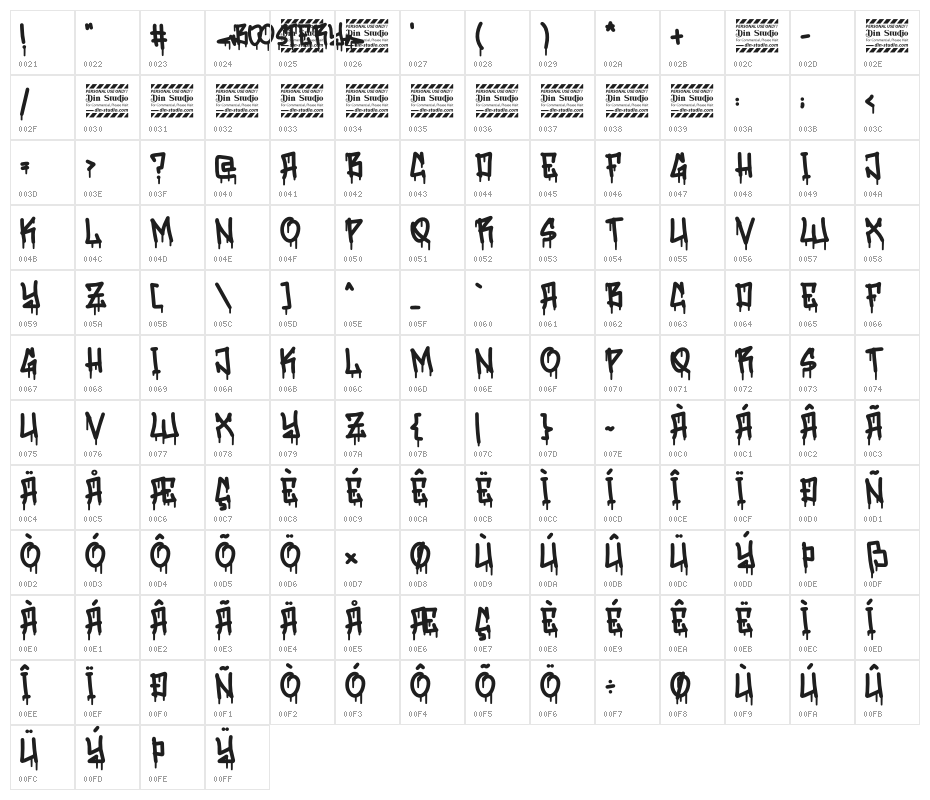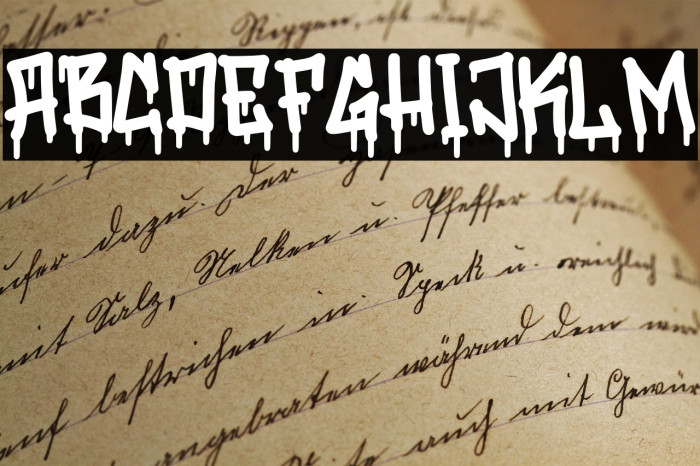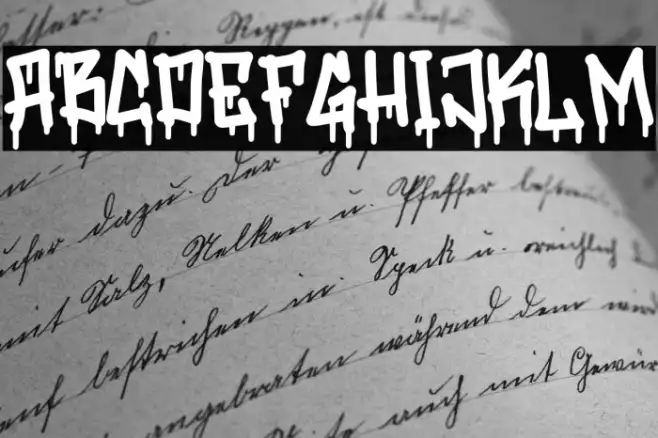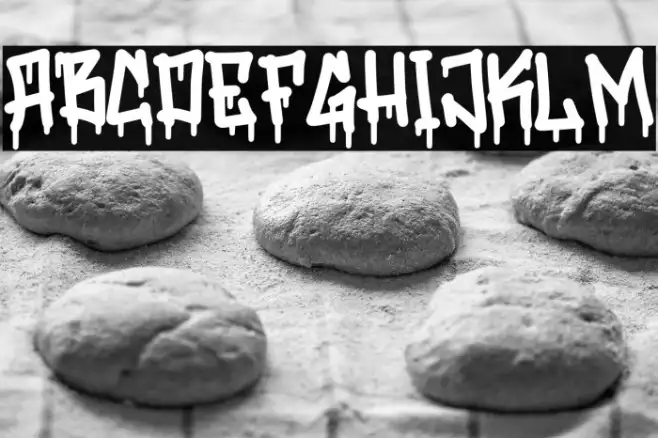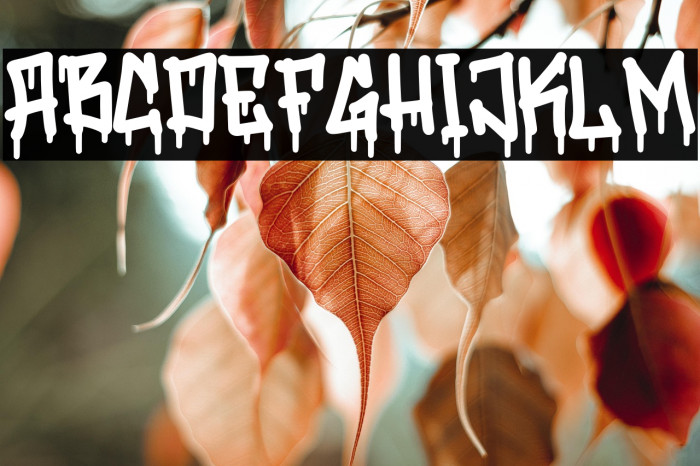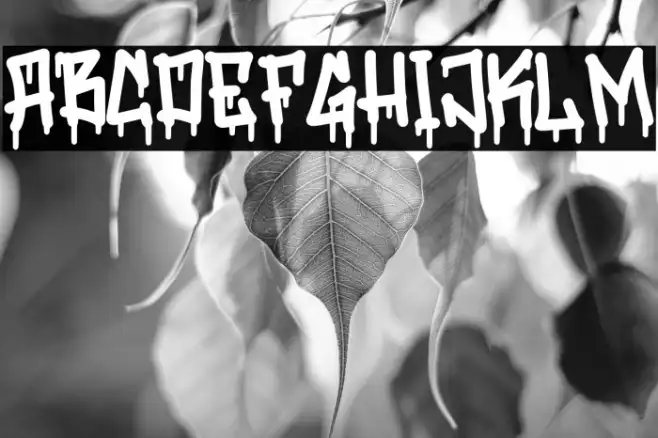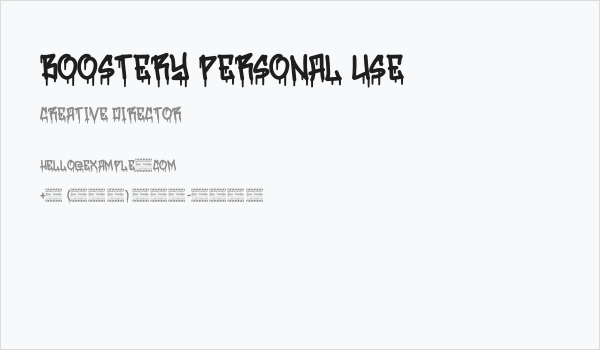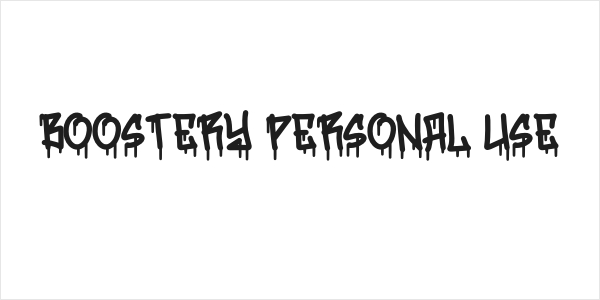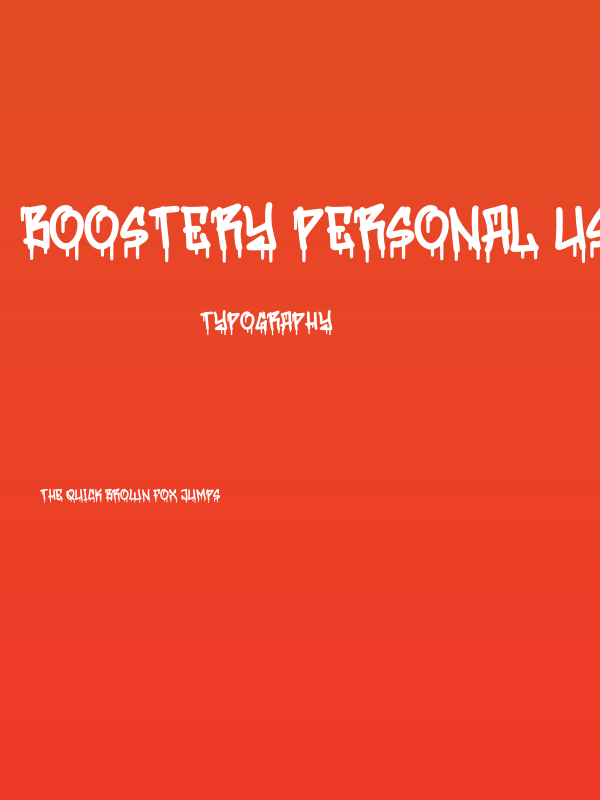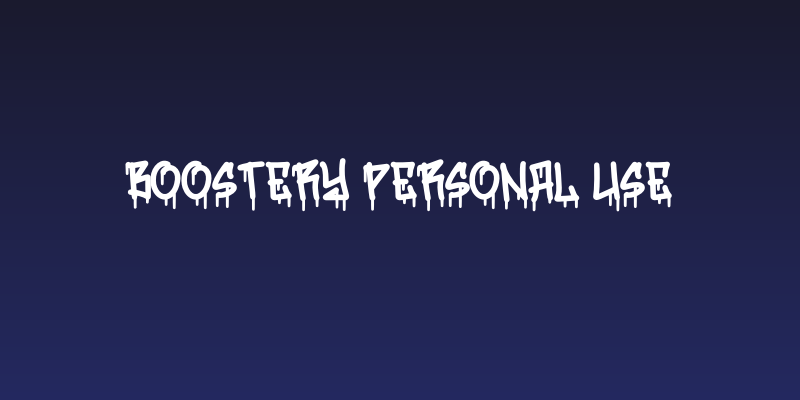
Boostery Personal Use Font
Boostery Personal Use Description
This font features a bold, graffiti-inspired style with dripping effects that give it a dynamic and edgy appearance. The characters are uppercase and lowercase letters, numbers, and a selection of special characters. The strokes are thick and consistent, creating a strong visual impact. The design is reminiscent of street art, with a rebellious and urban feel. The letters are slightly condensed, enhancing the compact and intense look of the font.
Overall StyleUrban, Edgy, Graffiti
Use CaseLogos, Posters, Album covers
Proposed ProjectsIdeal for street art projects, urban-themed designs, music album covers, and edgy branding.